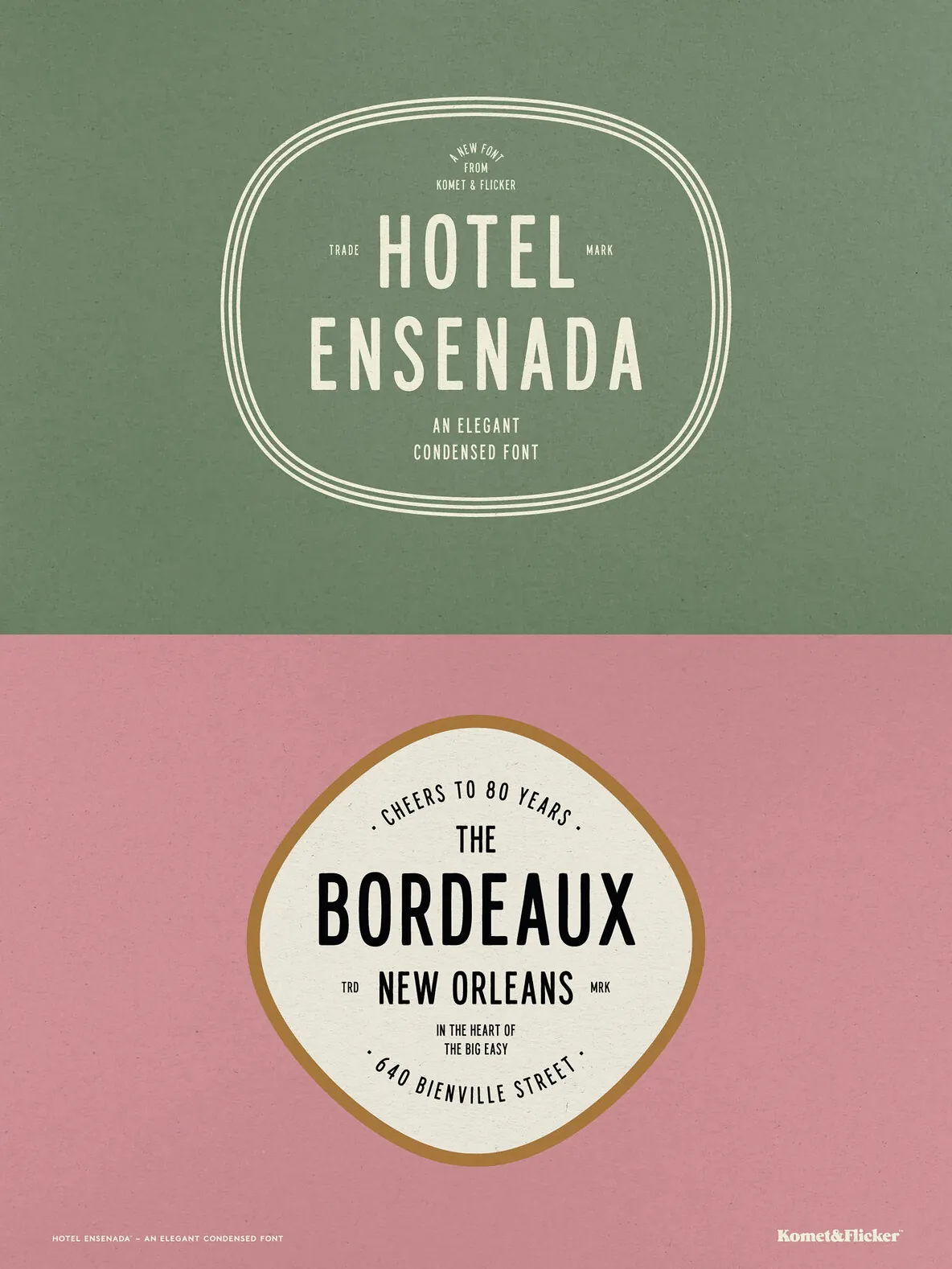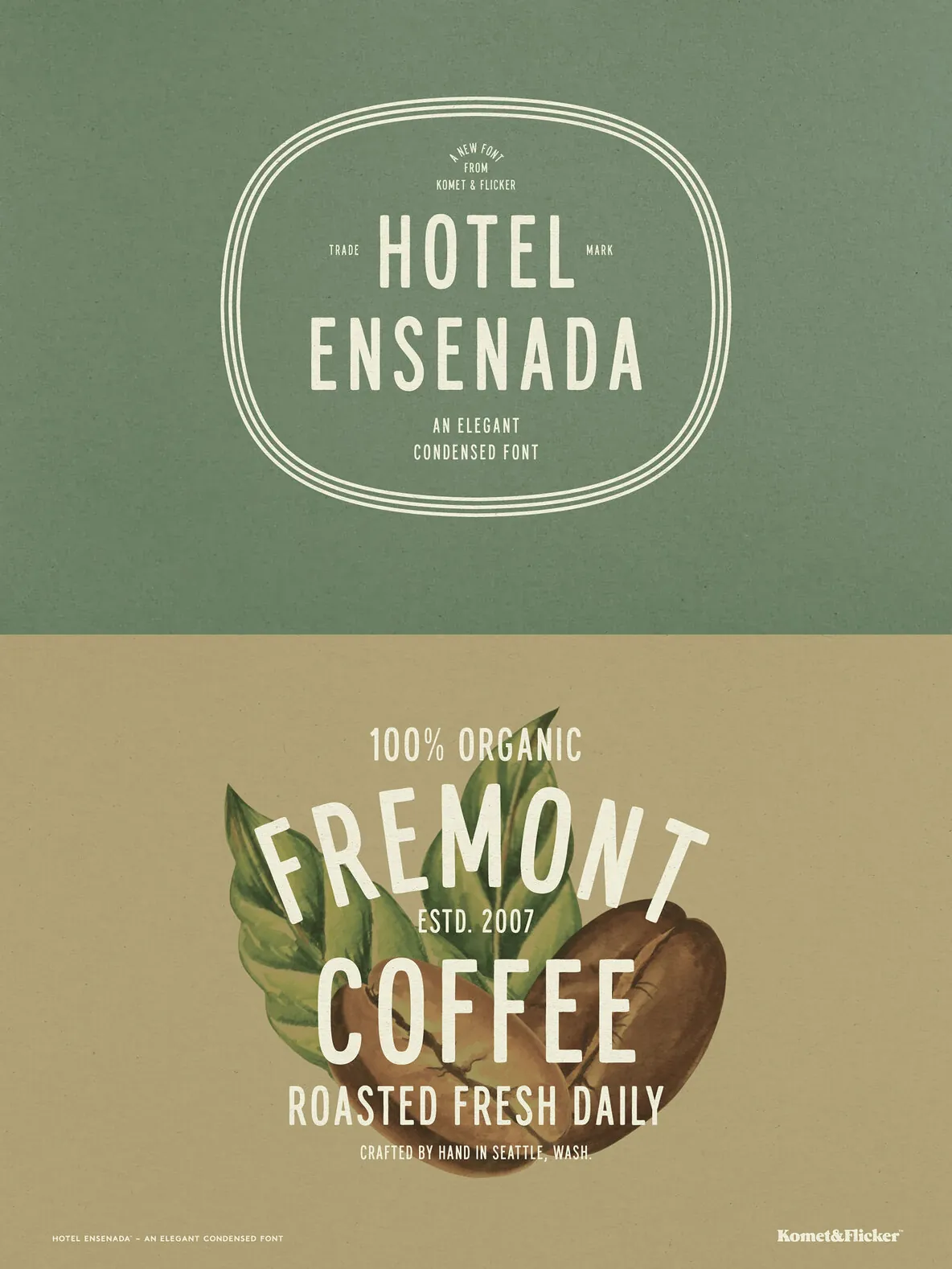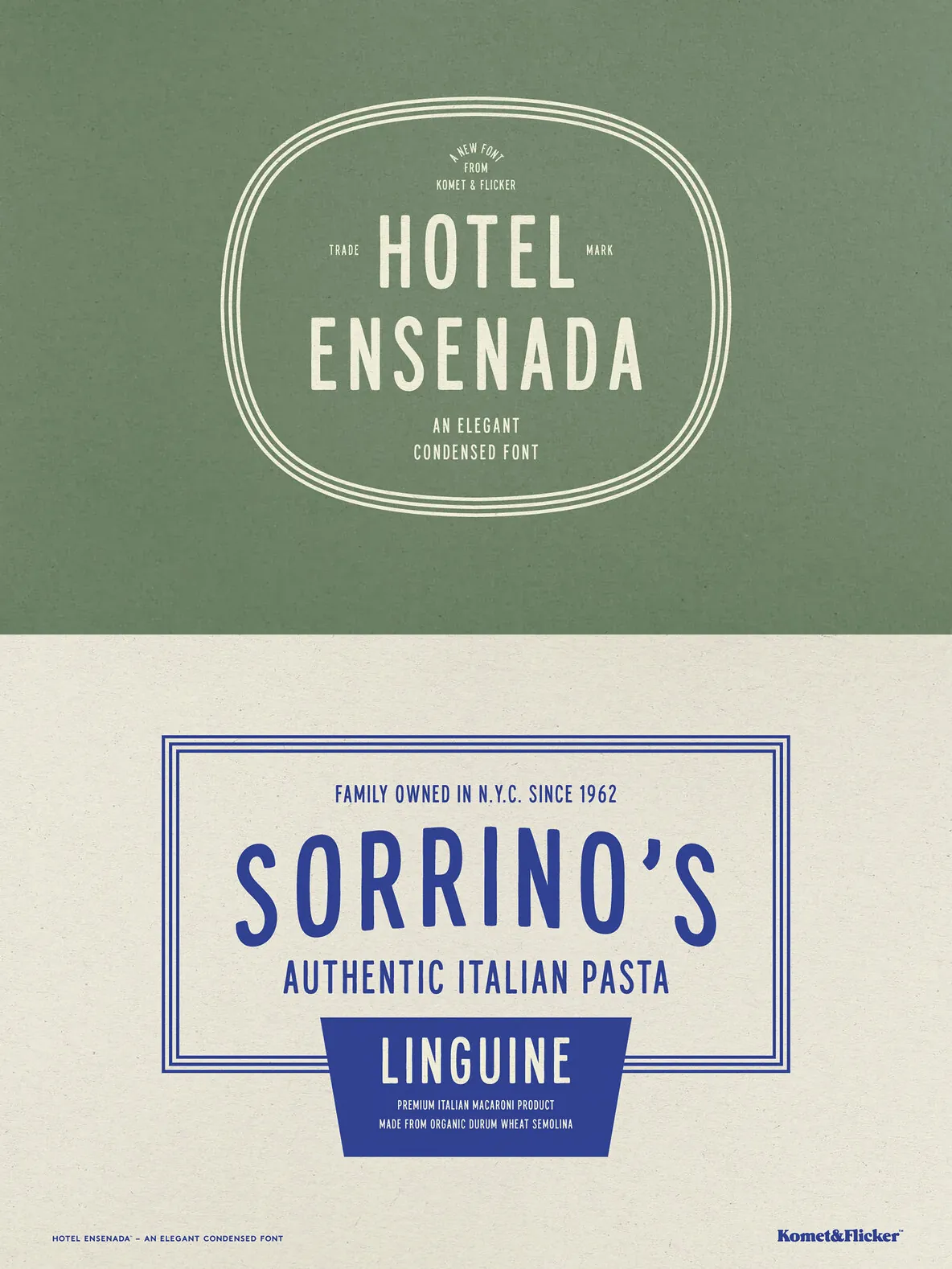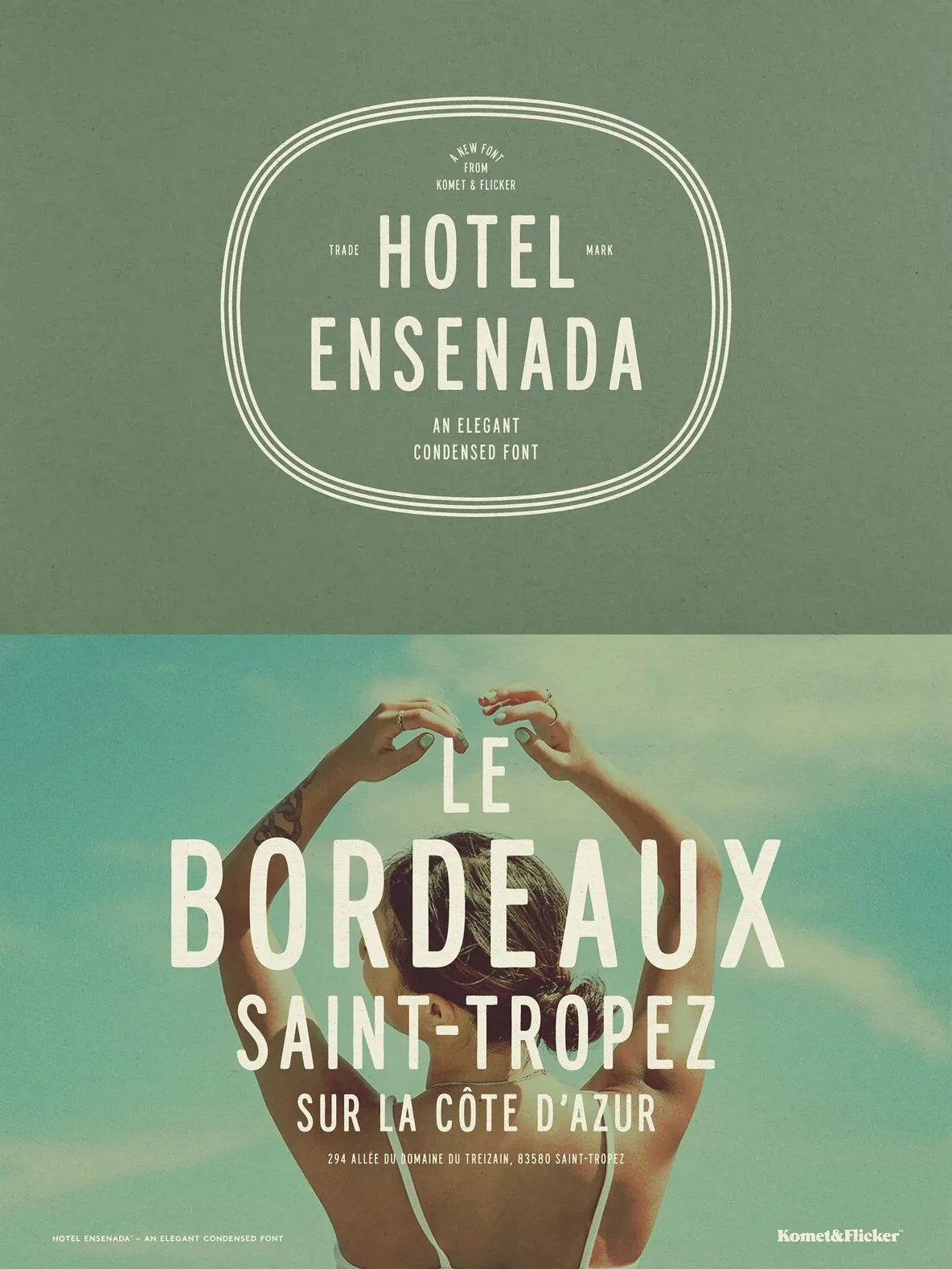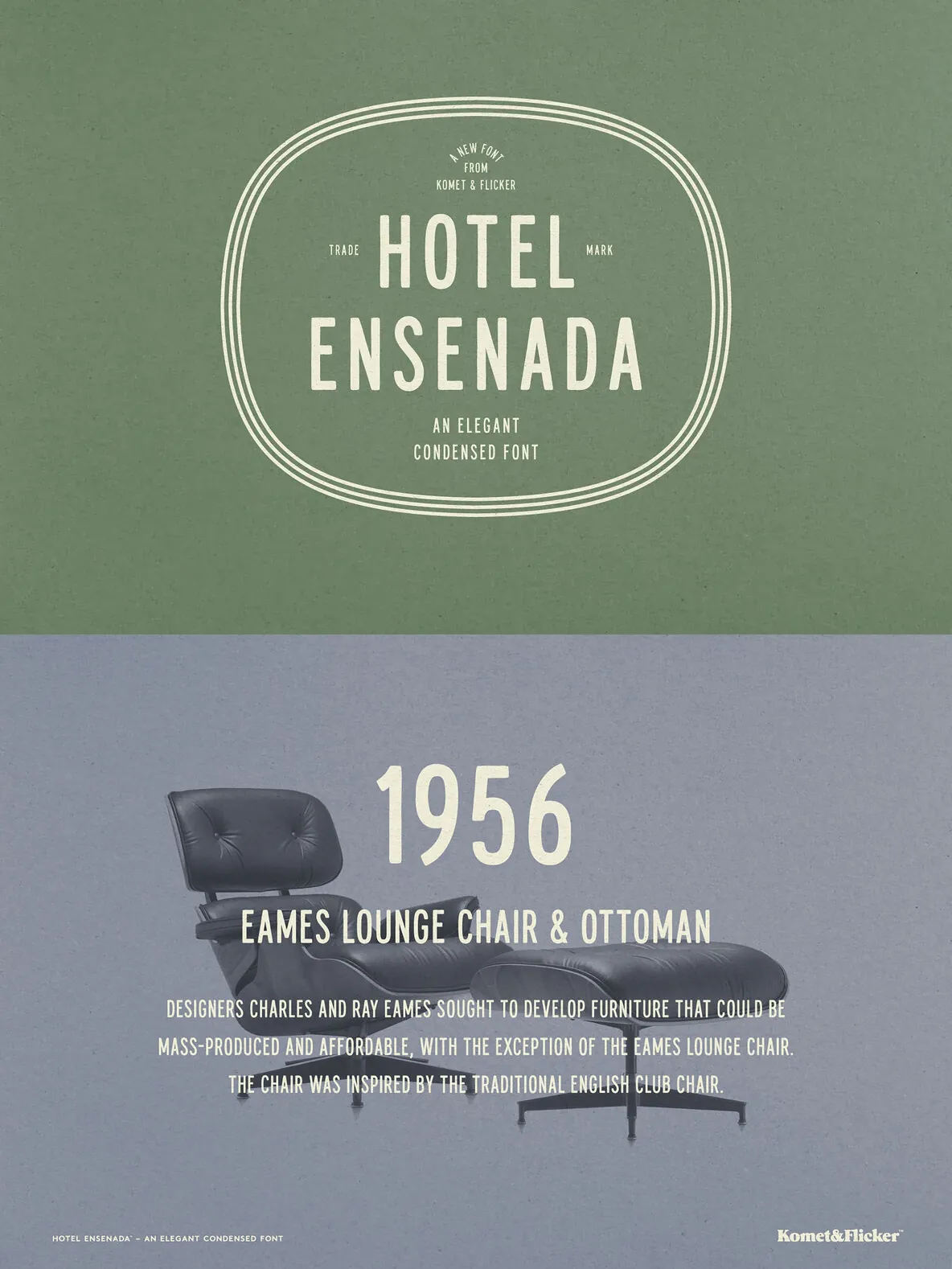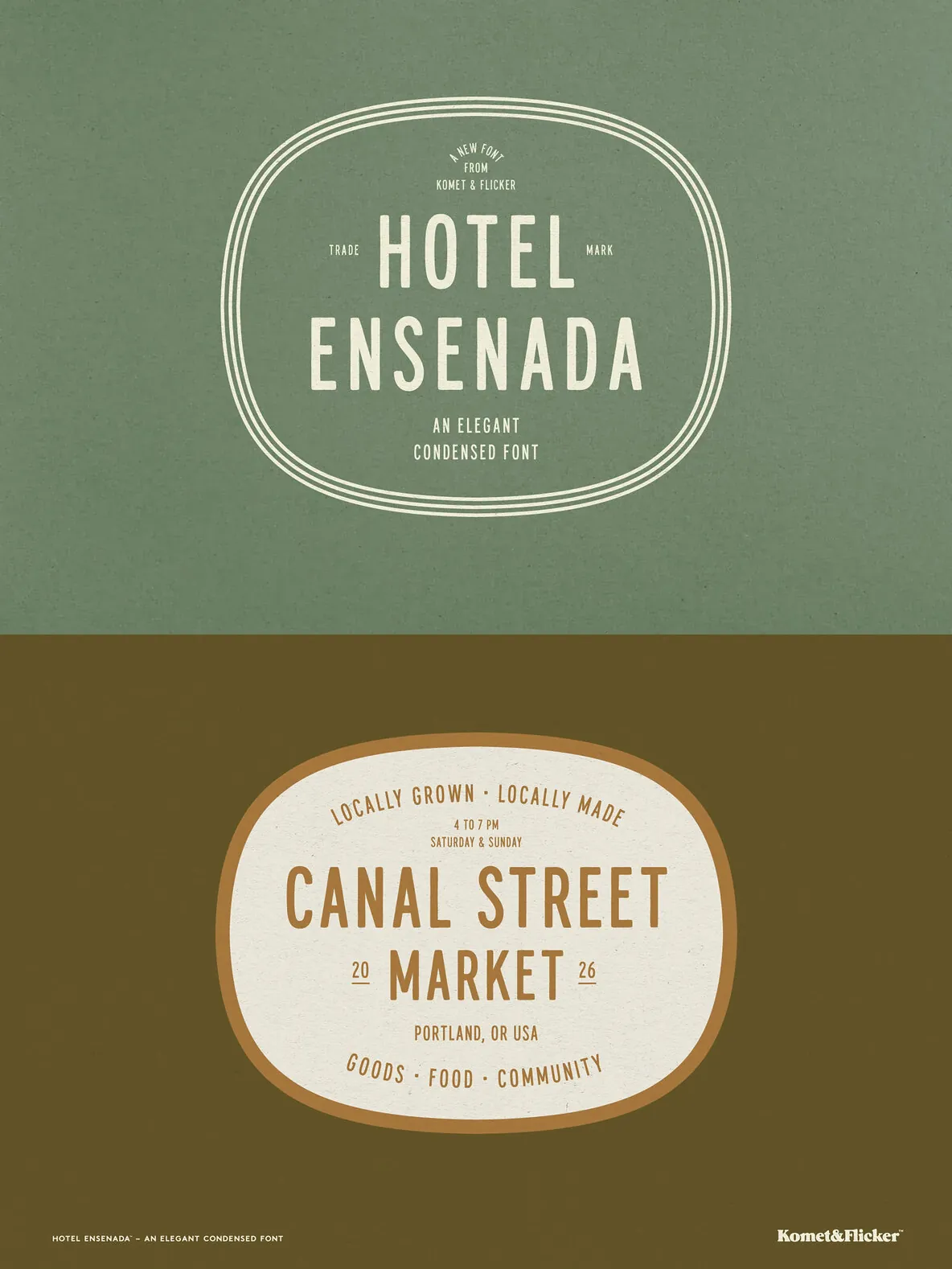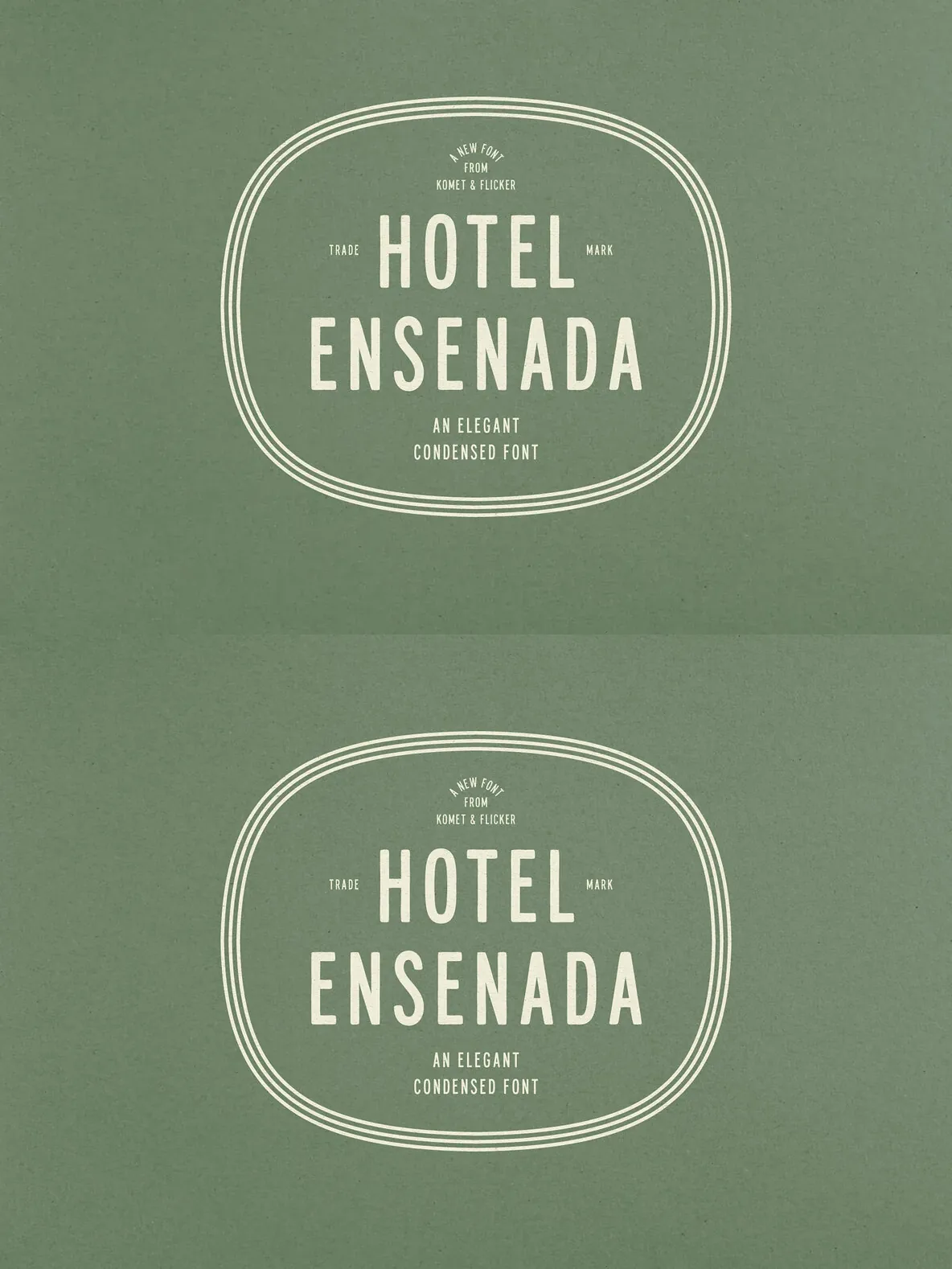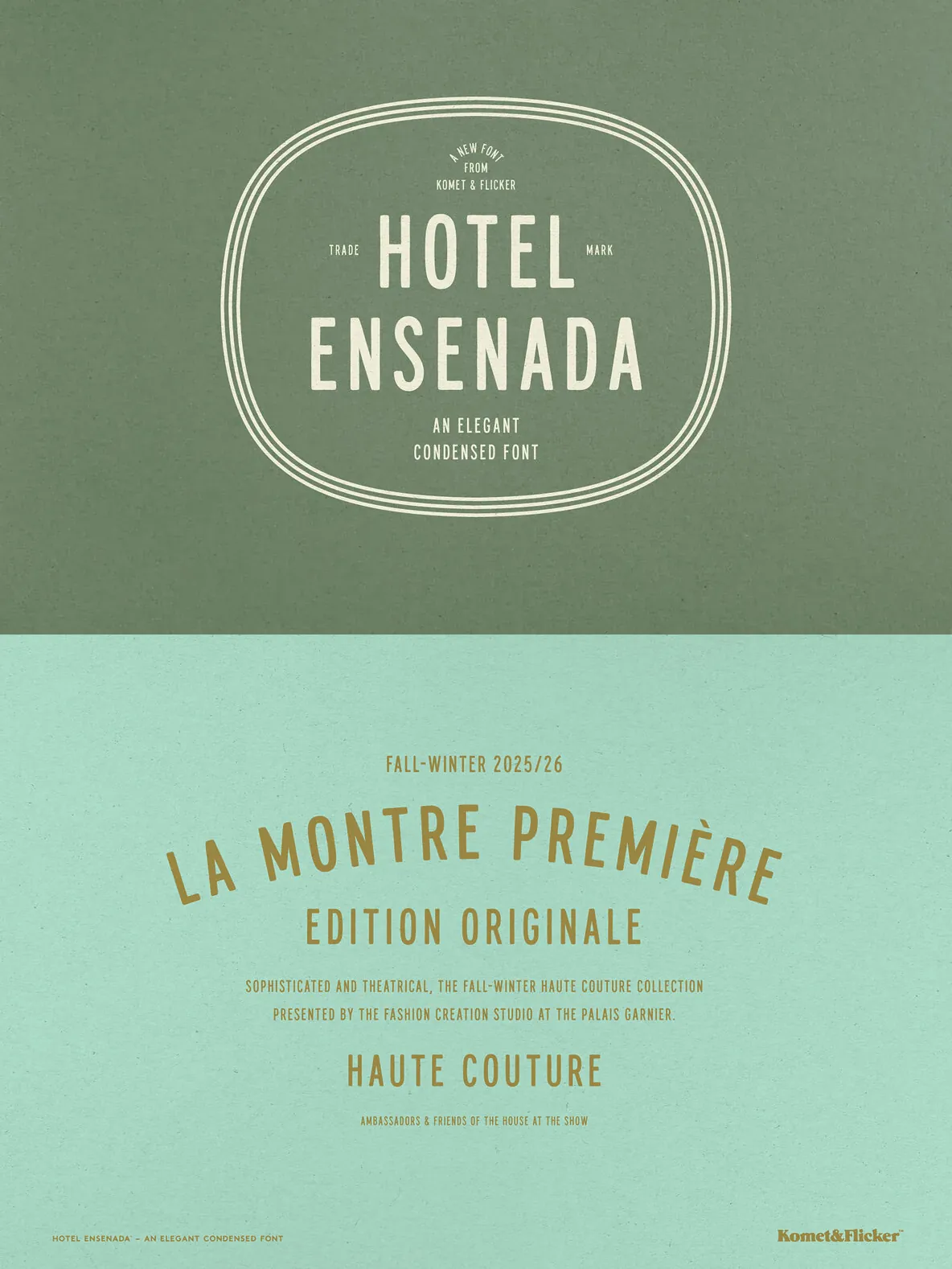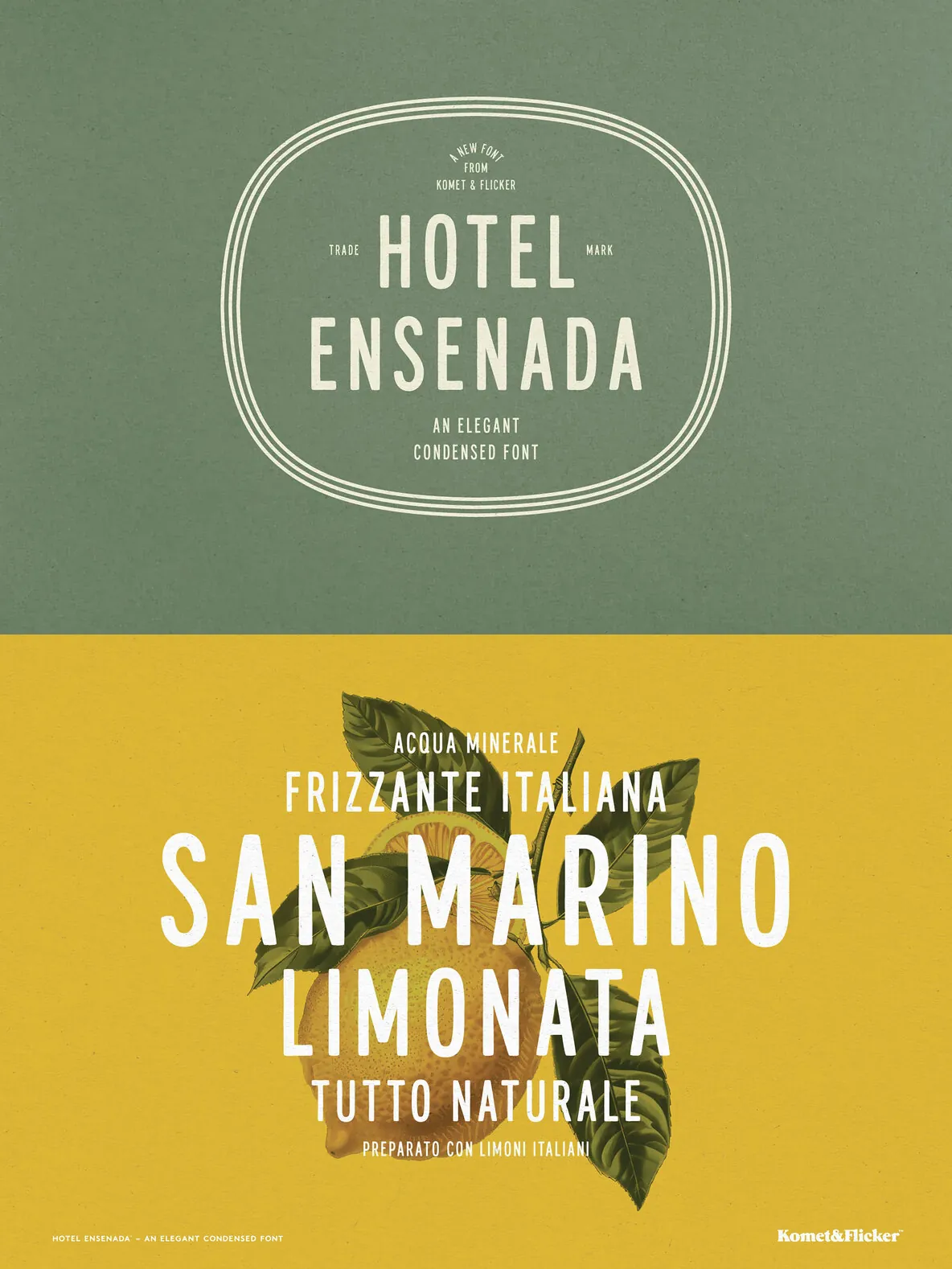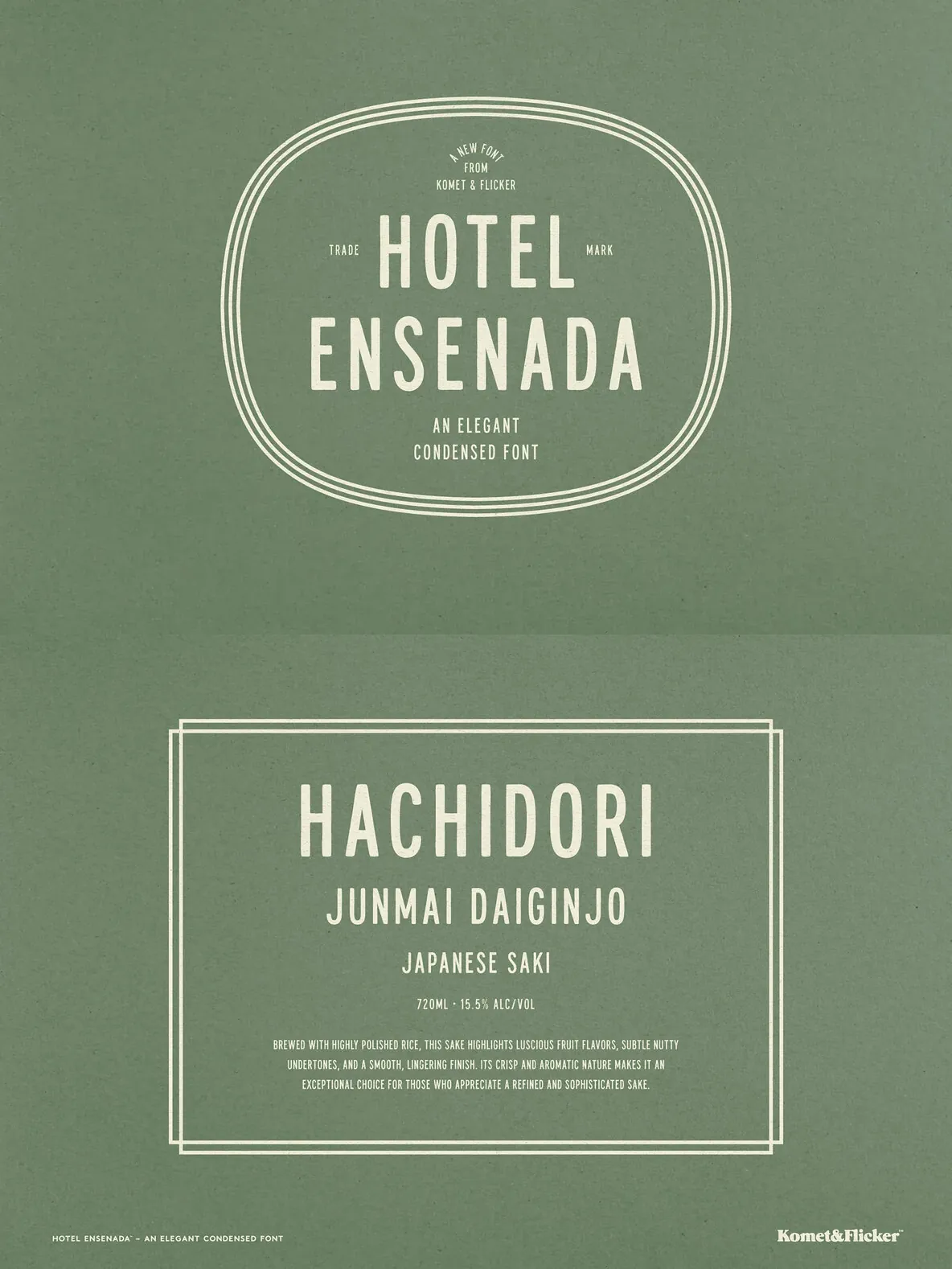
Hotel Ensenada — Coastal Signage, Polished
Hotel Ensenada is an elegant, condensed, all-caps hand-drawn font inspired by the timeless charm of coastal signage and boutique hotel lettering. Its tall, refined proportions and carefully drawn strokes give typography a quiet sense of sophistication and warmth, ideal for premium branding that still feels human.
Every letterform is drawn by hand, so the typeface keeps a natural rhythm and subtle organic character while staying polished and upscale. The condensed structure suits space-conscious layouts without losing presence, making it a strong choice for logos, packaging, editorial headlines, branding, and signage where impact matters.
Hotel Ensenada includes a distinctive set of 11 custom connecting word glyphs in two styles. Use them to link words with graceful, flowing connectors and build memorable wordmarks and elevated typographic compositions. Refined yet expressive, it brings the romance of hand-lettered design to modern projects.